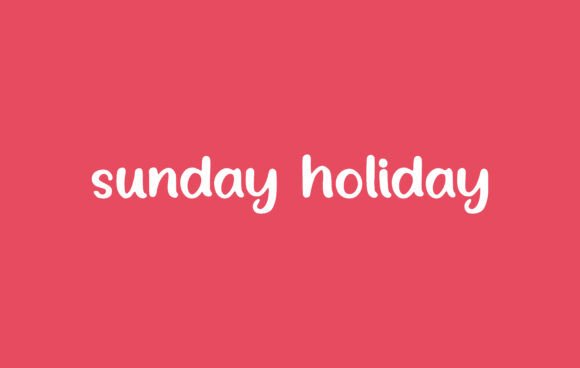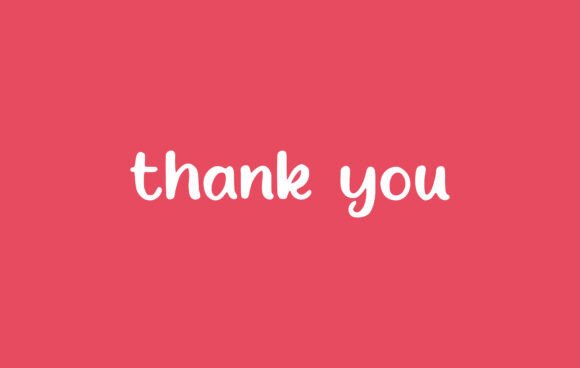
Introduction to Presley Font
Have you ever been working on a creative project, pouring your heart and soul into it, only to be stumped by the perfect font to bring it to life? That’s where the Presley Font comes in – a high-quality, authentic handwritten font that adds a touch of romance to any design.
As a valuable design resource, Presley Font is perfect for designers looking to elevate their creative ideas. With its legible and elegant script, it’s ideal for titles, body text, and even social media posts. Whether you’re working on a magazine headline, a wedding invitation, or a branding project, this font is sure to make a lasting impression.
Key Features of Presley Font
- Unique, hand-drawn design elements that add a touch of elegance to any project
Honest Review: Presley Font
I recently had the chance to experiment with the Presley Font, and I’m excited to share my thoughts on this design resource. The Presley Font is a high-quality font that boasts a unique and elegant aesthetic, making it perfect for a wide range of creative projects.
Here are some of the key strengths of the Presley Font:
- ✨ Elegant and sophisticated design aesthetic
- ✨ High-quality font that’s perfect for creative projects
- ⚠️ Limited character set (only includes uppercase and lowercase letters)
- ⚠️ Not suitable for use in complex typography or multi-line text
- Business cards and marketing materials
- Blog posts and social media graphics
- Photography captions and quotes
Overall, I’m impressed with the Presley Font and its potential as a design resource. While it may have some limitations, its unique design aesthetic and high-quality construction make it a great choice for designers working on creative projects. Plus, it’s available as a free download, making it a valuable addition to any design toolkit.
How to Use Presley Font
The Presley Font is a versatile and high-quality design resource perfect for any creative project. With its unique and stylish design, it’s an excellent choice for designers and artists looking to add a touch of elegance to their work.
Getting the Most Out of Presley Font
For the best results, use the Presley Font on a transparent background to give your design a clean and modern look. Experiment with different font sizes and styles to add depth and interest to your project.
The Presley Font is perfect for a variety of creative projects, including: